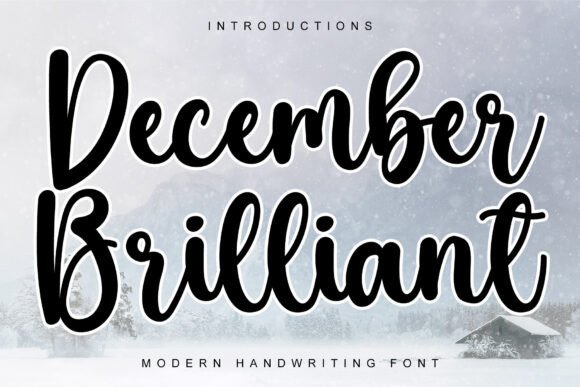
Introduction to December Brilliant Font
December Brilliant is a stylish handwritten font with a contemporary atmosphere and impeccable form, inspired by timeless classic calligraphy.
Balanced and varied, this font was designed to enhance the beauty of your projects .
Why Choose December Brilliant Font?